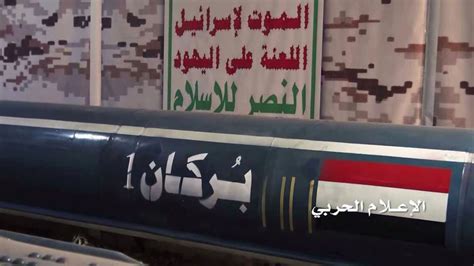
Khaled Alarabeh Font: A Comprehensive Guide
Hey guys! Ever stumbled upon a font that just clicks ? Something that feels both modern and timeless? Well, let’s dive deep into the world of the Khaled Alarabeh Font ! This guide will cover everything you need to know, from its origins and unique characteristics to its best uses and where you can snag it for your projects.
What is Khaled Alarabeh Font?
Khaled Alarabeh Font is a typeface that embodies a unique blend of contemporary design and traditional influences, making it a versatile choice for a wide range of applications. Its distinct letterforms and balanced aesthetics render it particularly suitable for branding, editorial design, and digital interfaces. The font is characterized by its clean lines, subtle curves, and a harmonious rhythm that enhances readability and visual appeal. It is meticulously crafted to ensure clarity and legibility across various sizes and resolutions, making it equally effective in both print and digital environments. Moreover, the font family often includes multiple weights and styles, offering designers flexibility to create visual hierarchies and add depth to their layouts. Whether used for headlines, body text, or display purposes, Khaled Alarabeh Font brings a touch of sophistication and modernity to any design project. Understanding the nuances of Khaled Alarabeh Font involves appreciating its design philosophy, which seeks to bridge the gap between classic typography and contemporary aesthetics. The font’s designer likely invested considerable effort in refining the letterforms to ensure they are not only visually appealing but also highly functional. This attention to detail is evident in the consistent stroke widths, the carefully considered spacing between characters, and the overall balance of the typeface. Such features contribute to the font’s versatility, allowing it to be used in diverse contexts without compromising readability or aesthetic coherence. Furthermore, the availability of different weights and styles within the Khaled Alarabeh Font family enhances its adaptability, making it a valuable asset for designers aiming to create visually engaging and effective communication materials. Its modern yet timeless appeal ensures that it remains relevant and useful for a wide range of design projects, contributing to its popularity and recognition within the design community. So, in essence, Khaled Alarabeh Font is more than just a set of characters; it is a carefully crafted tool that empowers designers to express their creativity and communicate their message with clarity and style. By mastering its use, designers can elevate their work and create designs that are both visually stunning and highly effective. It’s like having a secret weapon in your design arsenal, ready to deploy whenever you need that perfect touch of elegance and modernity.
Key Characteristics of Khaled Alarabeh Font
Let’s break down what makes Khaled Alarabeh Font stand out. We’re talking about those little design choices that give it character and make it so darn versatile. Firstly, its legibility is top-notch . No matter the size, the letters remain clear and easy to read, which is crucial for everything from body text to headlines. The clean lines and balanced letterforms contribute significantly to this readability, making it a reliable choice for extensive text blocks. Secondly, the font boasts a modern aesthetic with subtle curves and refined details that give it a contemporary feel. This modernity ensures that the font remains relevant and visually appealing in today’s design landscape. Its sleek appearance makes it suitable for projects that require a touch of sophistication and elegance. Thirdly, versatility is a major plus . Khaled Alarabeh Font works well in a variety of contexts, from branding and advertising to editorial design and web interfaces. Its adaptability makes it a valuable asset for designers working on diverse projects. The availability of different weights and styles further enhances its versatility, allowing designers to create visual hierarchies and add depth to their layouts. Moreover, the font often includes a range of characters and symbols, supporting multiple languages and design needs. This comprehensive character set ensures that the font can be used globally and across various platforms without compatibility issues. Fourthly, its unique balance of tradition and modernity is a defining feature. While it incorporates classic typographic principles, it also embraces contemporary design trends, creating a harmonious blend that appeals to a wide audience. This balance ensures that the font remains timeless and relevant, making it a sustainable choice for long-term branding and design projects. The subtle incorporation of traditional elements adds a touch of familiarity, while the modern updates keep it fresh and engaging. Finally, its attention to detail is evident in every character. The spacing, kerning, and overall consistency of the font are meticulously crafted to ensure a polished and professional look. This attention to detail sets it apart from many other fonts, making it a reliable choice for designers who demand the highest quality. Each letterform is carefully refined to ensure it complements the others, creating a cohesive and visually appealing typeface. So, when you’re choosing a font, remember that Khaled Alarabeh Font brings a blend of clarity, style, and adaptability to the table. It’s designed to make your text not just readable, but also visually captivating.
Best Uses for Khaled Alarabeh Font
Alright, let’s talk about where Khaled Alarabeh Font really shines. This isn’t just another font; it’s a versatile tool that can elevate your projects in numerous ways. Think about branding – it’s an excellent choice for creating a sophisticated and modern brand identity. Its clean lines and balanced letterforms convey professionalism and elegance, making it ideal for logos, business cards, and marketing materials. Companies aiming to project a contemporary image will find Khaled Alarabeh Font particularly useful. Then there’s editorial design , where legibility is key. This font ensures that your articles, magazines, and books are easy to read and visually appealing. Its balanced design prevents eye strain, making it suitable for long-form content. Whether you’re designing a sleek magazine layout or a comprehensive book, Khaled Alarabeh Font can enhance the reading experience. Moving on to web design , it’s a fantastic option for creating clean and user-friendly websites. Its clarity at various sizes makes it perfect for headers, body text, and navigation menus. A well-chosen font can significantly improve a website’s usability and aesthetic appeal, and Khaled Alarabeh Font delivers on both fronts. For those in advertising , grabbing attention is the name of the game. Khaled Alarabeh Font can help you create eye-catching ads that stand out from the crowd. Its modern aesthetic and versatile nature make it suitable for both print and digital advertising campaigns. Whether you’re designing a billboard or an online banner, this font can help you communicate your message effectively. It’s also great for mobile apps , ensuring that your app’s interface is both readable and visually appealing. In the world of apps, where screen space is limited, choosing the right font is crucial. Khaled Alarabeh Font’s clarity and modern design make it an excellent choice for enhancing the user experience. Furthermore, consider presentations . Using Khaled Alarabeh Font can give your slides a professional and polished look. Its readability ensures that your audience can easily follow along, while its modern design adds a touch of sophistication. A well-designed presentation can make a significant impact, and choosing the right font is a key element in achieving that. Lastly, social media graphics can greatly benefit from this font, making your posts and banners more engaging. In the crowded world of social media, standing out is essential. Khaled Alarabeh Font can help you create visually appealing graphics that capture attention and communicate your message effectively. So, wherever you need a font that’s both stylish and functional, Khaled Alarabeh Font is a solid choice. It’s like having a reliable friend who’s always ready to help you make a great impression. Just remember to use it wisely and creatively to unlock its full potential!
Tips for Using Khaled Alarabeh Font Effectively
So, you’ve got Khaled Alarabeh Font in your arsenal. Now, let’s make sure you wield it like a pro! Here are some tips to help you use this font effectively and create stunning designs. First off, consider the context . Think about where your design will be used and who your audience is. Is it a corporate report, a trendy blog, or a marketing campaign? Tailor your font usage to match the tone and style of the project. Khaled Alarabeh Font is versatile, but it still needs to align with the overall message. Secondly, pair it wisely . Choosing the right companion fonts can make or break your design. Khaled Alarabeh Font often works well with classic serif fonts for a balanced look or with clean sans-serif fonts for a modern feel. Experiment with different combinations to see what works best for your project. Websites like FontPair can give you great ideas for font pairings. Then there’s hierarchy is key . Use different weights and sizes of Khaled Alarabeh Font to create a clear visual hierarchy. Headlines should be bolder and larger than body text, and subheadings should stand out without overpowering the main title. A well-defined hierarchy helps guide the reader’s eye and makes your content more accessible. Moving on to legibility is paramount . Make sure your text is easy to read, regardless of the size or medium. Adjust the letter spacing and line height to optimize readability, especially for long blocks of text. Test your design on different devices and screen sizes to ensure it looks good everywhere. Also, don’t overuse it . While Khaled Alarabeh Font is stylish, using it excessively can diminish its impact. Limit the number of fonts in your design to two or three, and use them consistently throughout the project. Too many fonts can create a cluttered and unprofessional look. It’s also worth considering color contrast . Ensure there’s sufficient contrast between your text and background to make it easy to read. Dark text on a light background is generally the safest bet, but you can experiment with different color combinations to create a visually appealing design. Tools like Adobe Color can help you find harmonious color palettes. Consistency is crucial for maintaining a professional look. Use Khaled Alarabeh Font consistently across all your branding and marketing materials. This helps create a cohesive brand identity and reinforces your message. Develop a style guide to ensure everyone on your team is using the font correctly. Lastly, get feedback . Before finalizing your design, ask for feedback from others. Fresh eyes can spot issues you might have missed, such as readability problems or inconsistent font usage. Constructive criticism can help you refine your design and make it even better. By following these tips, you can harness the full potential of Khaled Alarabeh Font and create designs that are both beautiful and effective. Remember, the key is to use it thoughtfully and intentionally, always keeping your audience and goals in mind.
So there you have it – a deep dive into the world of the Khaled Alarabeh Font . Now you’re armed with the knowledge to use it like a design superstar. Go forth and create amazing things!